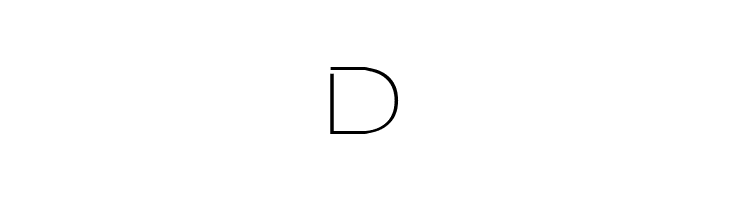
A bold, modern font with strong, confident letterforms and excellent readability.
A bold, classic serif font with strong, elegant strokes.
A bold, italic serif font with a classic and elegant style.
A sleek, modern font with geometric elements and a futuristic feel.
A sleek, modern italic font with geometric precision and futuristic style.
A bold, blocky font with rounded edges and a strong presence.
A bold, italic, and modern typeface with thick, rounded strokes and tight spacing.